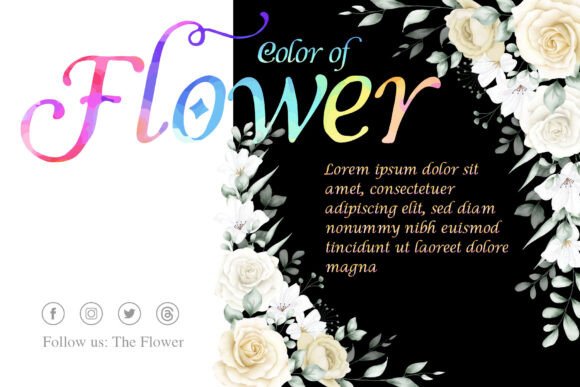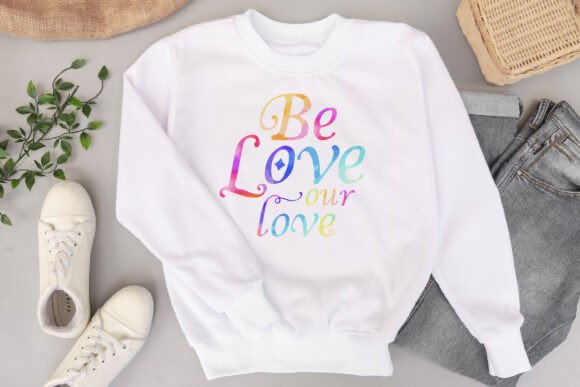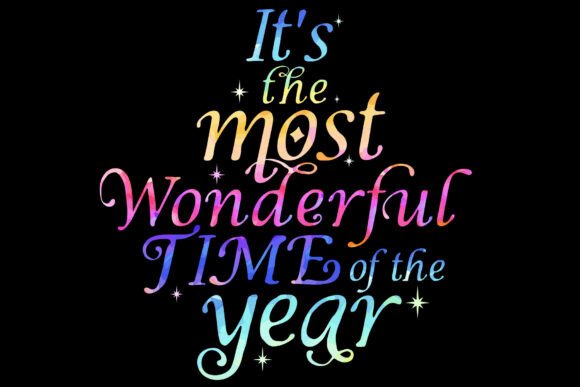
Unlock the Magic of Special Moments with the Bride and Groom Font
Have you ever stared at a blank canvas, trying to capture the essence of a love story or a joyful celebration? The pressure to convey emotions through design can be overwhelming. That’s where the Bride and Groom Font comes in – a beautiful, color font that brings a touch of whimsy and romance to your projects.
This stunning font is designed to elevate your designs, whether you’re creating a wedding invitation, a Christmas card, or a Valentine’s Day message. Its watercolor theme and artistic sophistication make it a valuable asset for designers who want to add a personal touch to their work. With PUA encoding, accessing all glyphs and swashes is a breeze, making the Bride and Groom Font a joy to work with.
Bride and Groom Font Key Features
- Font Family: Bride and Groom is a unique font family designed specifically for wedding-related designs and materials.
- Unique Characteristics: The font features elegant, cursive script and bold, sans-serif styles, making it perfect for wedding invitations, programs, and other stationery.
Bride and Groom Font Review
I recently had the chance to work with the Bride and Groom Font, and I must say, it’s a unique and charming addition to any wedding design. Here’s my honest review:
- The font’s cursive style is perfect for creating a whimsical and romantic atmosphere, making it ideal for wedding invitations and other wedding stationery.
- The font is highly customizable, allowing you to adjust the color, size, and spacing to fit your design needs.
- The font is available in both uppercase and lowercase letters, providing a nice balance between formal and informal elements.
- The font may not be suitable for large blocks of text, as it can become difficult to read due to its cursive nature.
- The font may not be the best choice for digital applications, such as website design, due to its handwritten style.
- The font may require some adjustments to ensure proper kerning and spacing, especially when combining it with other fonts.
The Bride and Groom Font is a lovely addition to any wedding design, and its unique style is sure to add a touch of romance and whimsy. However, it’s essential to consider its limitations when choosing this font for your project.
Use the Bride and Groom font in combination with other wedding-themed fonts to create a cohesive look.
Use the font to create custom wedding stationery, such as invitations and thank-you cards.
The Bride and Groom font is commonly used in wedding invitations, save-the-dates, and wedding stationery.
It can also be used in wedding websites, social media graphics, and other digital wedding materials.
The font is ideal for creating a romantic and elegant look for wedding-related designs.
Alternatives to Bride and Groom Font
Love Story Script
Love Story Script is a beautiful, elegant script font perfect for wedding invitations and other wedding-related designs. It has a classic, romantic feel that is ideal for traditional weddings. When to use: Formal, traditional weddings, wedding invitations.
Comparison to Bride and Groom Font: While Bride and Groom Font is more playful and whimsical, Love Story Script is more sophisticated and elegant. If you’re looking for a font that exudes romance and luxury, Love Story Script is a great choice.